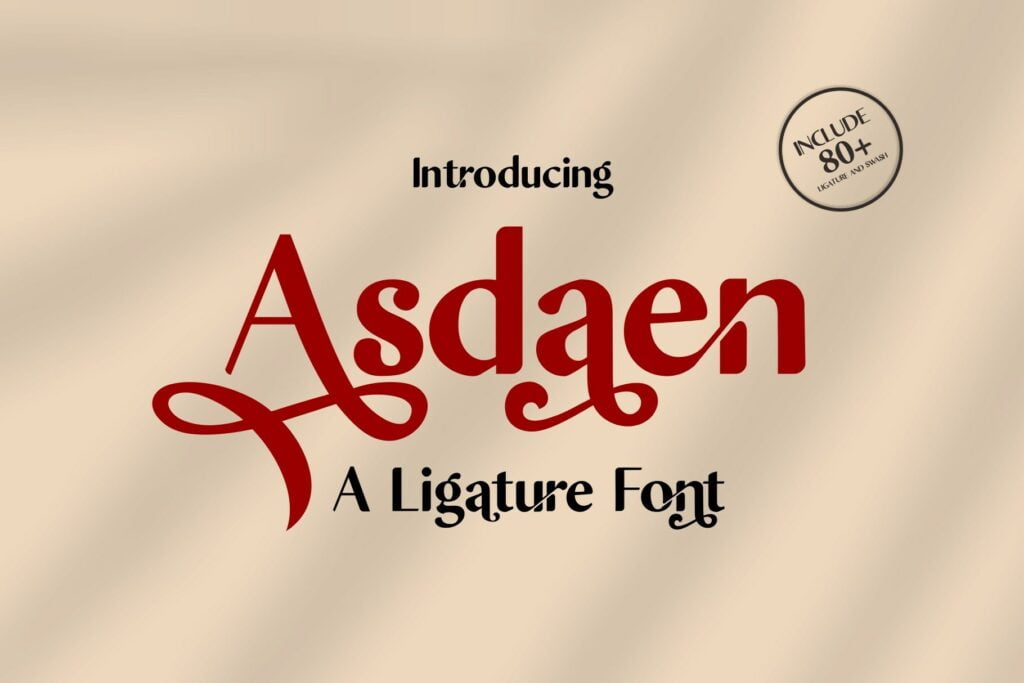
Asdaen Sans Serif Font
Introducing ” Asdaen Sans Serif Font ” with contrast lines and balanced curves. This font may be conservative and classic, and also may be more playful and modern. A lot of stylish alternates will give you many useful variations for use.